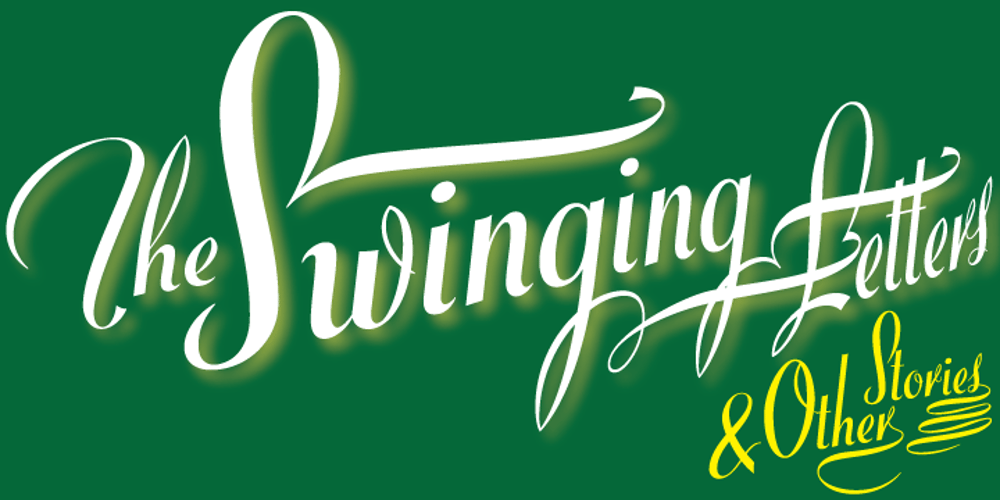
Blanchard Font Family was designed by Joan Trochut-Blanchard, Rebecca Alaccari, Patrick Griffin and published by Canada Type. Blanchard contains 2 styles and family package options. Blanchard is a revival and elaborate extension of Muriel, a 1950 metal face made by Joan Trochut-Blanchard for the Fonderie Typographique Française, that was published simultaneously by the Spanish Gans foundry under the name Juventud. Blanchard is a script that embodies the post-war narrow decorative aesthetic that would become the instantly recognizable feature of that era’s design. Its high ascenders corners make it the tuxedo of fonts, with slight and casual angles gradually revealing a trustworthy confidante, and sharp corners signaling a most expressive ally. Font. James Font. This digital version updates the original metal shapes to work within today’s design tools and designer needs. Some of the questionable metal shapes were optimized, plenty of alternates were added, and as many as five ending forms were built for most lowercase letters. Overall, this is one of the most useful packages for book cover, magazine and packaging design. Blanchard is available in all popular formats. Blanchard Pro combines all five fonts into a single one that makes use of OpenType’s cross-platform compatibility and programs that support OT’s fine typography features, like recent versions of Adobe InDesign and QuarkXpress.